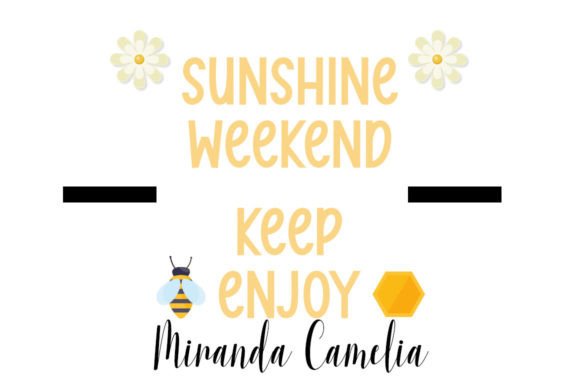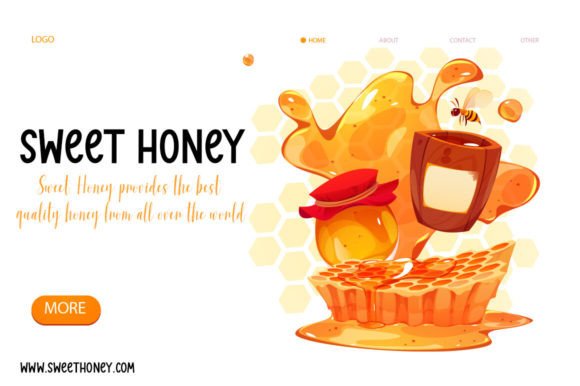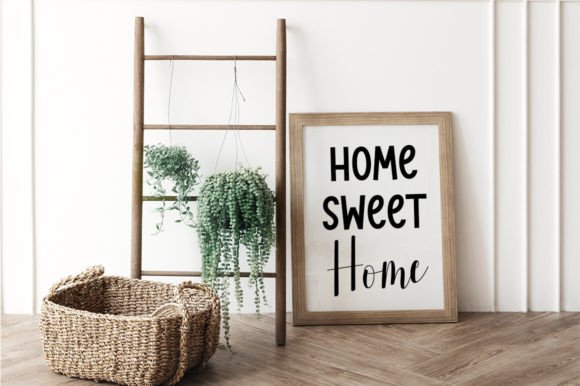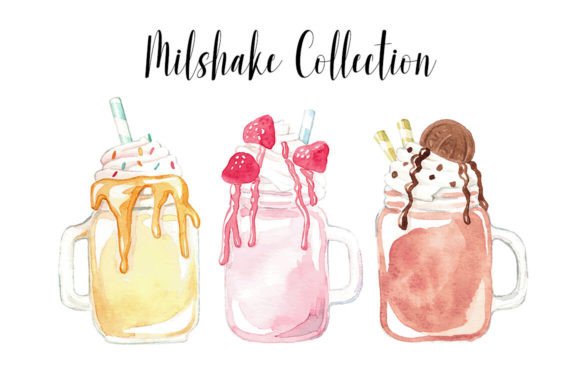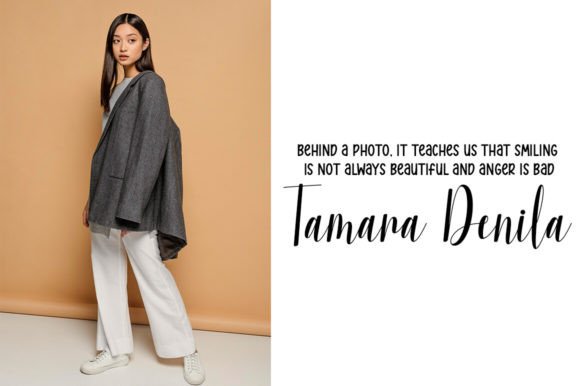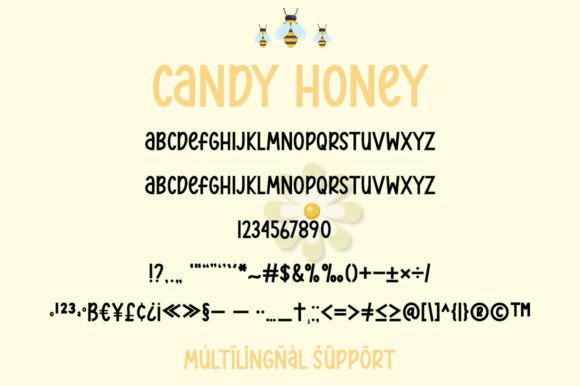
Introduction to Candy Honey Duo Font
Have you ever found yourself sitting at your desk, staring at a blank canvas, trying to decide on the perfect font to bring your creative project to life? For many designers, this is a moment of pure frustration – until they stumble upon the perfect combination of style and elegance. That’s exactly what the Candy Honey Duo Font offers: a high-quality, delicate duo font that perfectly balances sans serif and script styles.
This versatile font is more than just a pretty face – it’s a valuable resource for designers looking to add a touch of romance to their work. Whether you’re creating a custom greeting card or a beautiful headline, the Candy Honey Duo Font is sure to impress. And with its PUA encoding, accessing all the glyphs and swashes is a breeze.
Key Features of Candy Honey Duo Font
- High-quality design for creative projects, offering a unique and playful touch.
- Includes two font styles: a bold, colorful font and a delicate, cursive font, perfect for pairing in a design.
- Includes 250+ glyphs and characters, including letters, numbers, and punctuation marks, for a wide range of design applications.
Honest Review: Candy Honey Duo Font
I recently stumbled upon the Candy Honey Duo Font and I must say, it’s a great addition to any designer’s library. The font is a high-quality design resource that can elevate any creative project. One of the standout features of this font is its versatility – it can be used for a wide range of applications, from food labels to wedding invitations.
What works well about this font is its unique and playful style, which is perfect for designers looking to add a touch of whimsy to their projects. The font also comes with a transparent background, making it easy to combine with other design elements.
Here are some of the key features of the Candy Honey Duo Font:
- Unique and playful style
One thing to note is that the font may not be suitable for all types of projects – it’s best used for creative and lighthearted designs. ⚠️ Additionally, the font may not be as versatile as some other design resources, but overall, it’s a great addition to any designer’s library. ✨
Overall, I’m impressed with the Candy Honey Duo Font and I would recommend it to designers looking for a high-quality design resource for their creative projects.
Tips for Getting the Most Out of the Candy Honey Duo Font
Use the font in combination with other design resources to create a unique and creative project. Experiment with different font sizes, colors, and styles to achieve a high-quality design. Also, ensure the font is properly scaled and aligned to avoid any distortion.
The Candy Honey Duo Font is ideal for creative projects such as logos, branding, and packaging design. It is also suitable for social media graphics, flyers, and brochures. With its transparent background and high-quality design, the font is a great addition to any design resource.